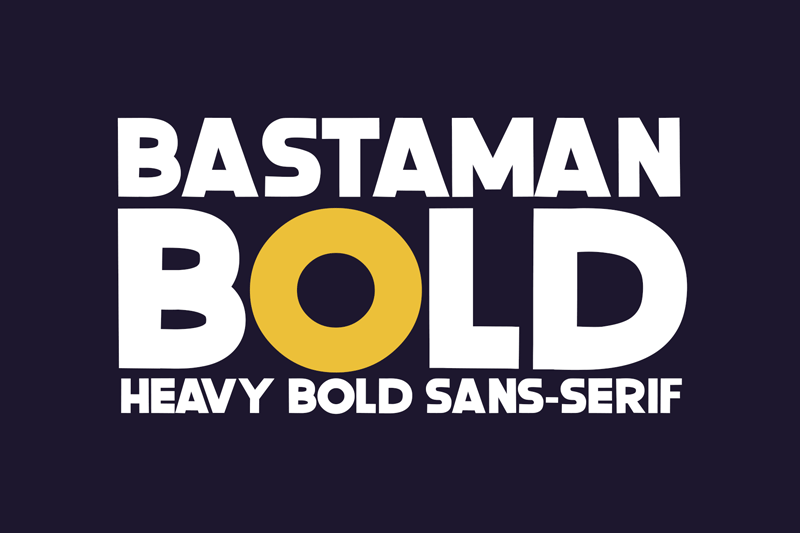
Font name: | Bastaman |
Author: | Mohamad Farhan Ramadhan |
Note by Mohamad Farhan Ramadhan | |
Bastaman is a bold and fierce display font. It can be used for a variety of ideas, both formal and casual. It works great on sporting or racing designs. THIS LICENSE IS FOR PERSONAL USE FOR COMMERCIAL USE LICENSE, here: https://www.creativefabrica.com/product/bastaman/ref/401336/ |